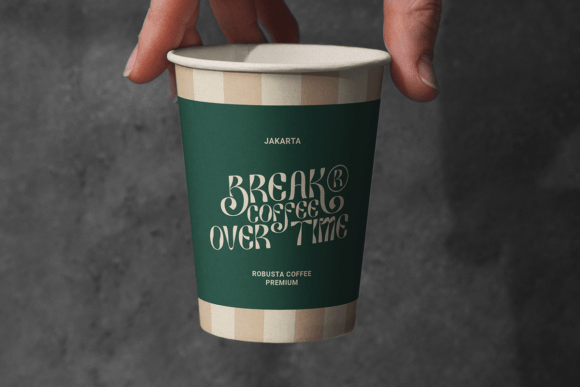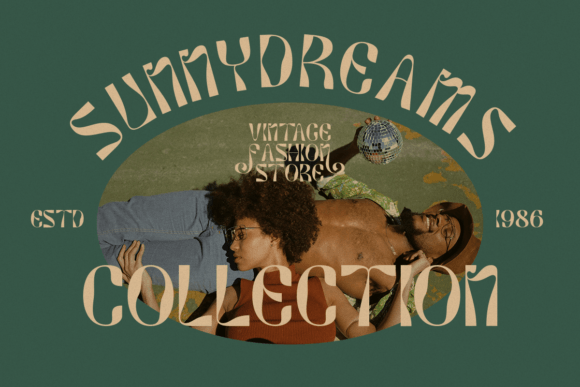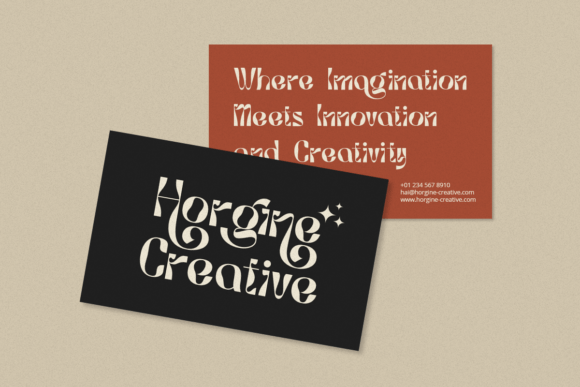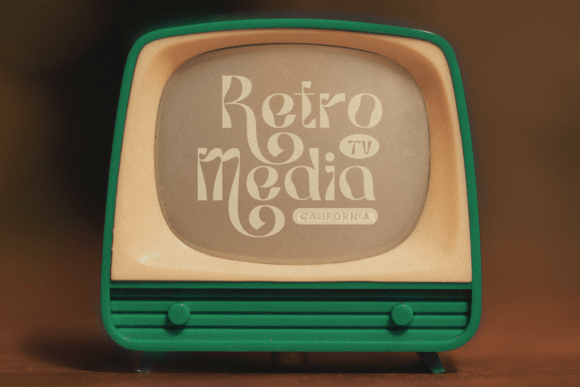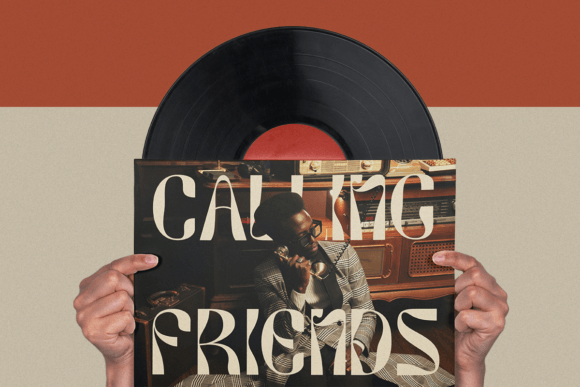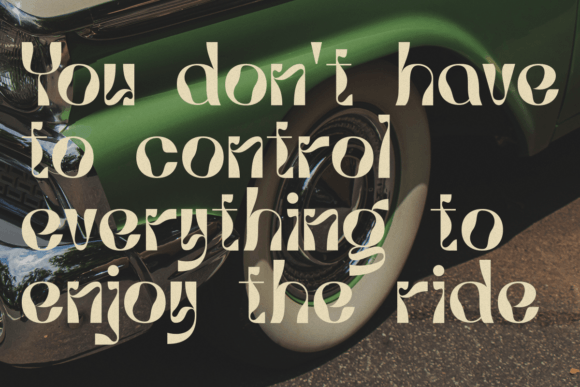
Introduction to Retrotrend Font
Have you ever stumbled upon a vintage advertisement or a classic movie poster and instantly felt a rush of nostalgia? The Retrotrend Font is designed to evoke those same feelings, transporting you to a bygone era while still feeling refreshingly modern. This stunning display font is the perfect addition to any designer’s toolkit, offering a unique blend of retro charm and contemporary style that’s sure to elevate any creative project.
As a designer, you know how valuable it is to have a reliable design resource that can help you stand out from the crowd. The Retrotrend Font is that resource, providing a high-quality, flexible font that’s perfect for a wide range of projects, from tropical and vintage themes to futuristic and luxurious designs. With its transparent background and ligature support, you can create stunning visuals that are sure to impress.
Key Features of Retrotrend Font
• Unique, high-quality design that adds a touch of nostalgia to any creative project
• Includes a transparent background, allowing for seamless integration into various design projects
• Designed with a bold, retro aesthetic, perfect for creating eye-catching graphics and designs
• Easy to use and customize, making it a valuable addition to any designer’s toolkit
Honest Review: Retrotrend Font
I recently stumbled upon the Retrotrend Font, and I must say, it’s been a game-changer for my creative projects. The high-quality design and unique style have made it a valuable addition to my design resource library.
• ✨ Unique and nostalgic design aesthetic that adds a touch of retro charm to any project.
• ✨ Transparent background makes it easy to use with a variety of backgrounds and design elements.
• ⚠️ Limited font sizes and styles available, which may not be suitable for complex designs or projects that require a lot of customization.
• ⚠️ Not ideal for professional or corporate projects that require a more formal tone.
Overall, I’m really impressed with the Retrotrend Font. It’s a great resource for designers looking to add a touch of retro flair to their projects. While it may have some limitations, I think it’s a valuable addition to any design library.
Tips for Getting the Most Out of Retrotrend Font
For optimal results, use Retrotrend Font in combination with other design elements that evoke a retro or vintage feel. Experiment with different font styles and sizes to achieve a unique look.
Retrotrend Font is commonly used in creative projects, such as:
• Retro-themed posters and flyers
• Vintage-inspired social media graphics
• Classic-style book covers and magazines